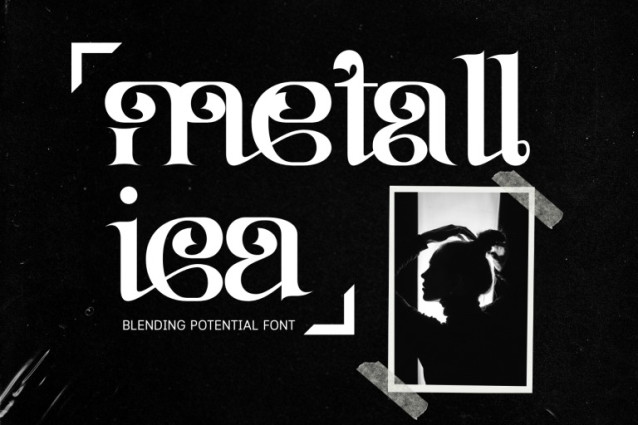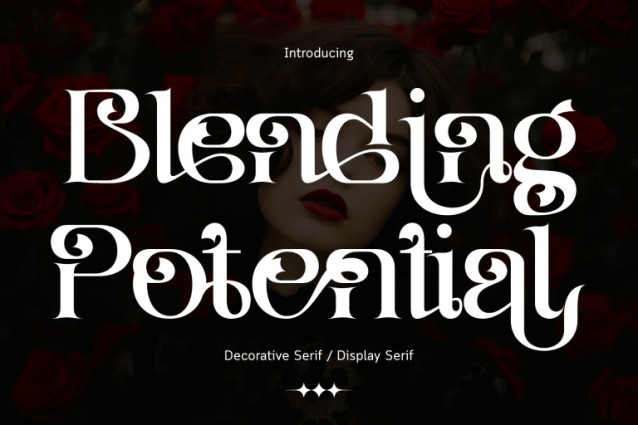
Blending Potential Font
Blending Potential – Elegant Serif Font – Elegant Calligraphic Serif Display Font, an elegant calligraphic serif display font that blends classic serif structure with graceful handwritten flourishes. The letterforms feature soft curves, high-contrast strokes, and beautifully sculpted terminals, enhanced by refined swashes and decorative details. This harmonious balance between tradition and expressiveness gives the font a timeless, romantic, and luxurious character. Blending Potential is ideal for beauty and fashion branding, editorial headlines, wedding designs, luxury packaging, book covers, cosmetic labels, and artistic typography projects. Its flowing ligatures and ornamental accents bring sophistication and emotional warmth, making every word feel intentional and expressive.
Uppercase & Lowercase Letters
Around 100 Special Ligatures & Alternates
Accented Characters for multilingual support
🔤About 100 ligatures combined with Stylistic Alternates Font: